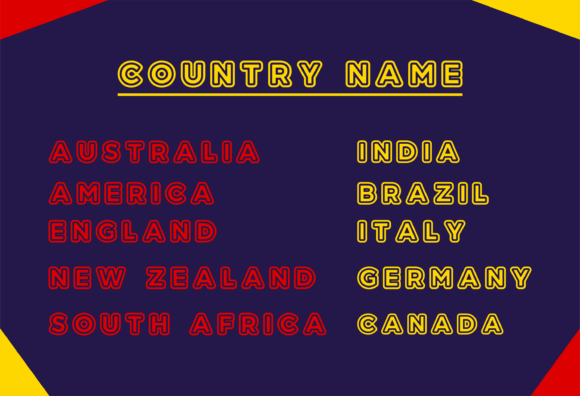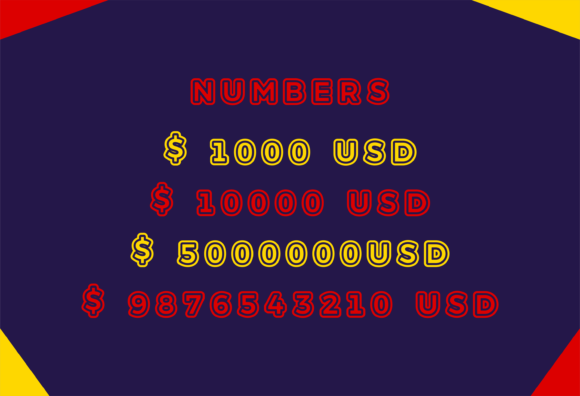
Introduction to Dusk Bubbler Font Font
Fonts play a crucial role in design, and the Dusk Bubbler Font font is a typeface that brings both character and versatility to any project. Whether you’re working on a branding project, a website, or a print design, the Dusk Bubbler Font font offers a unique style that can elevate your work.
Dusk Bubbler is a modern sans serif font with rounded edges, bubble letters, and a strong outline.
Key Features of Dusk Bubbler Font Font
Why Choose Dusk Bubbler Font Font?
The Dusk Bubbler Font font is more than just a typeface – it’s a design tool that helps you communicate your message with style and clarity. Its unique character set and versatile design make it suitable for a wide range of applications, from elegant invitations to bold headlines.
With its carefully crafted letterforms and balanced proportions, the Dusk Bubbler Font font ensures readability and visual appeal across all mediums.
What makes Dusk Bubbler Font font special?
The Dusk Bubbler Font font stands out with its unique design, exceptional readability, and versatility across various design applications.